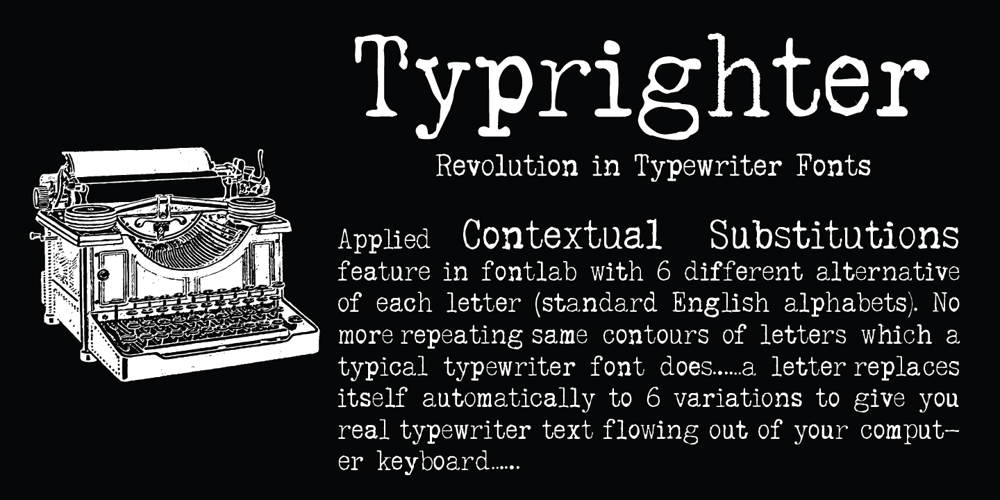
Typrighter V1
Typrighter V1 font
Typrighter V1 Font Family was designed by mobaric minhas and published by Jadugar Design Studio. Typrighter V1 contains 3 styles and family package options. Here is a revolution in typewriter fonts…….typrighter…….yes! typrighter V1 and typrighter V2…..We applied Contextual Substitutions feature in Fontlab with 6 different alternative of each letter (standard English alphabets). No more repeating same contours of letters which a typical typewriter fonts does……a next same letter replaces itself automatically to 6 variations to give you real typewriter text flowing out of your computer keyboard……Please watch a short demo and enjoy the open type features in word, illustrator and Photoshop….https://www.youtube.com/watch?v=HMM98Wmb_sgThe basic version is bold version but does not have Contextual Substitutions option.